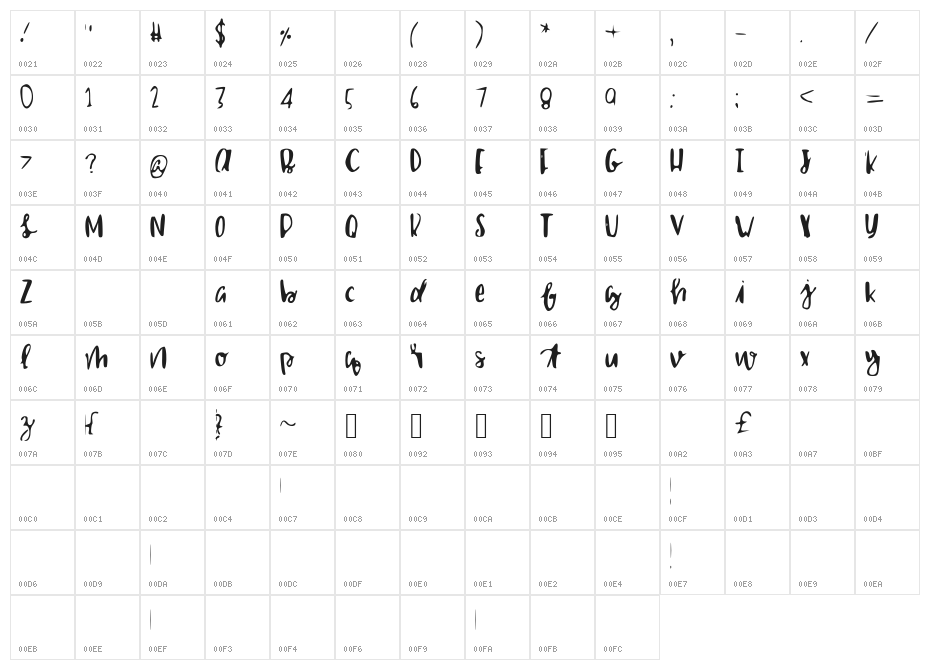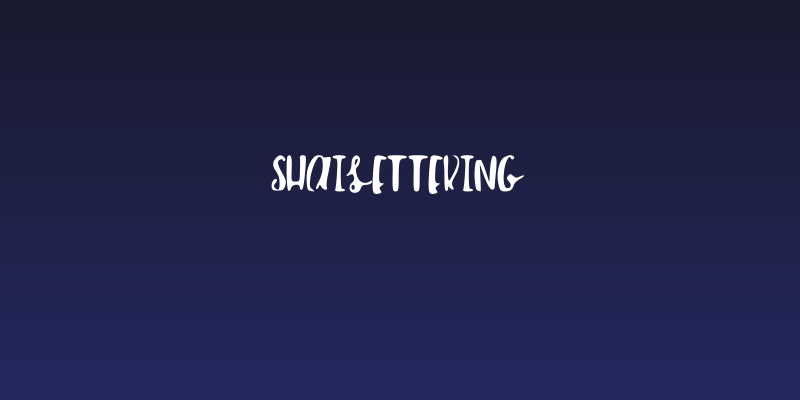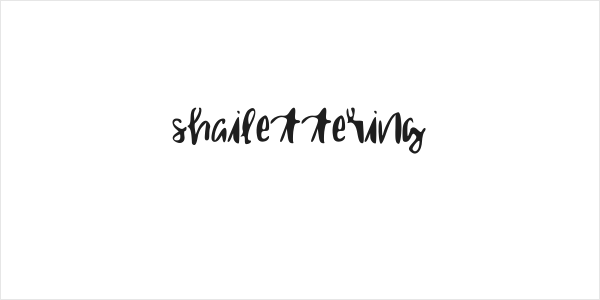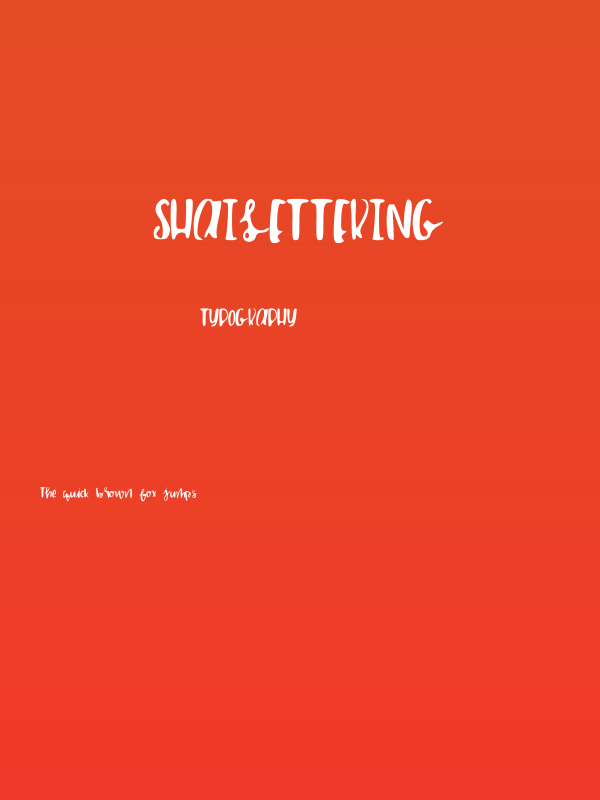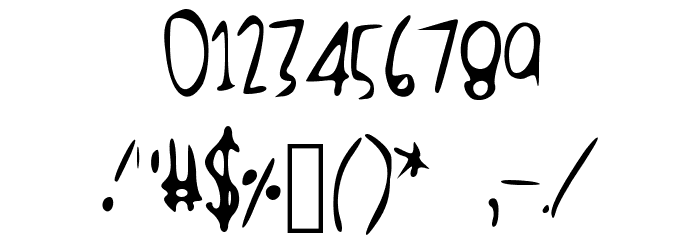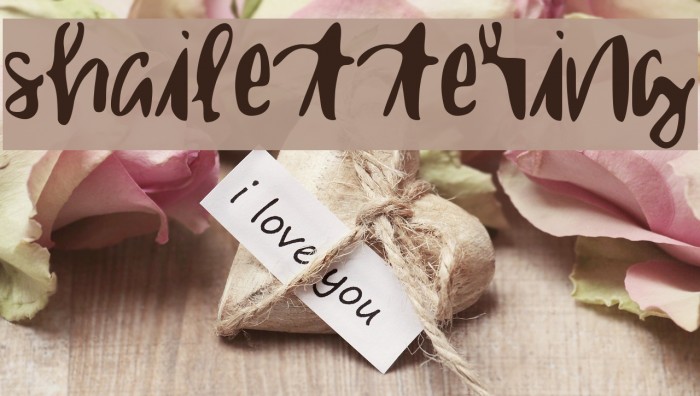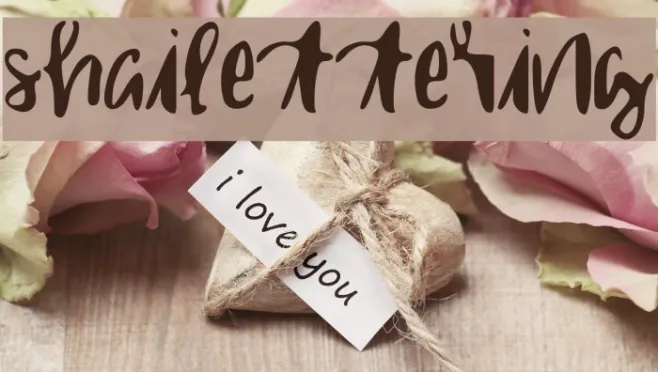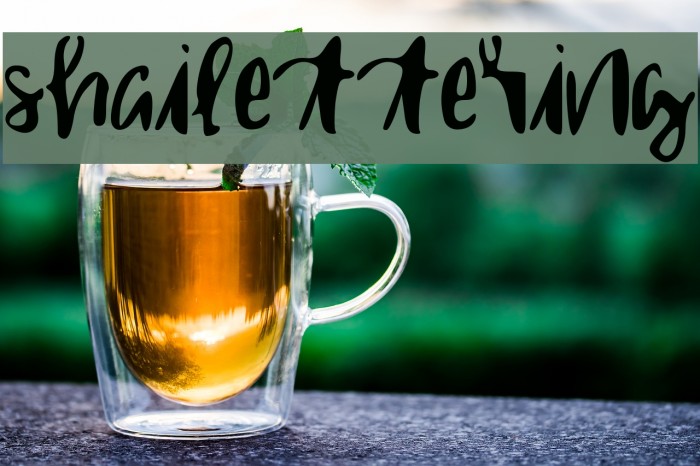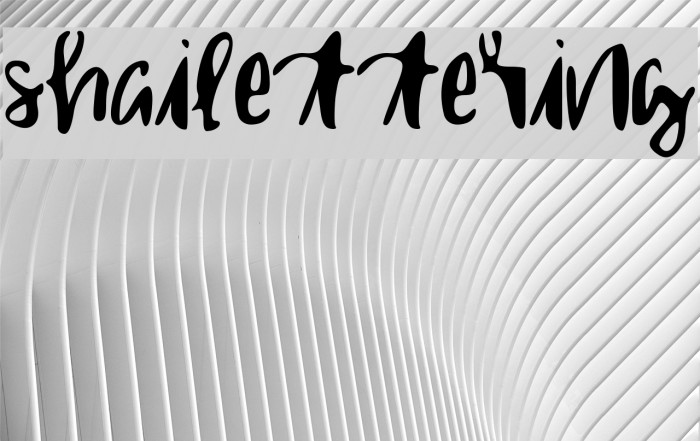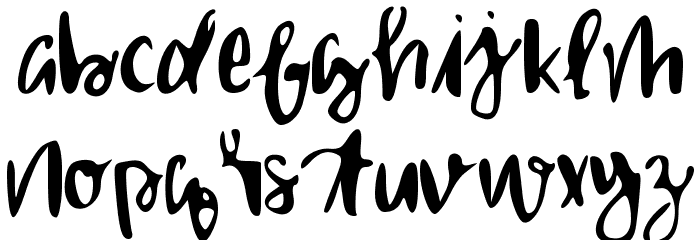
shailettering Font
shailettering Description
This font features a bold and expressive handwritten style, characterized by its fluid and dynamic strokes. The letters are crafted with a sense of movement, giving them a lively and energetic appearance. The uppercase and lowercase letters maintain a consistent style, with playful curves and loops that add a whimsical touch. The numbers and special characters are equally expressive, ensuring a cohesive look across all elements. The font's unique personality makes it stand out, perfect for projects that require a personal and artistic flair.